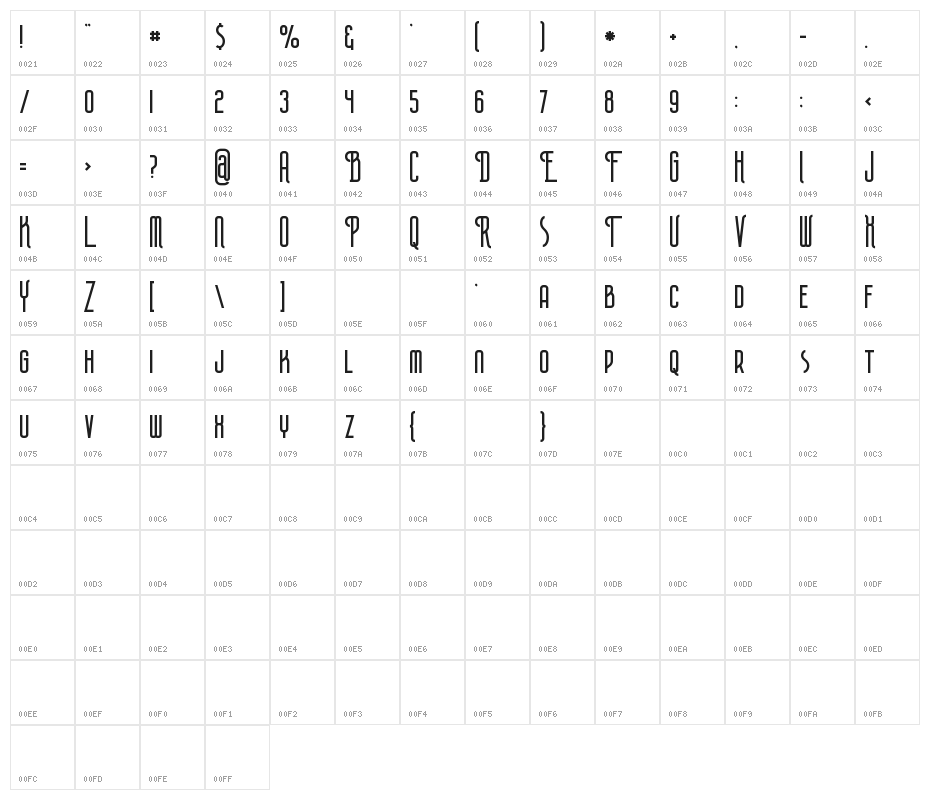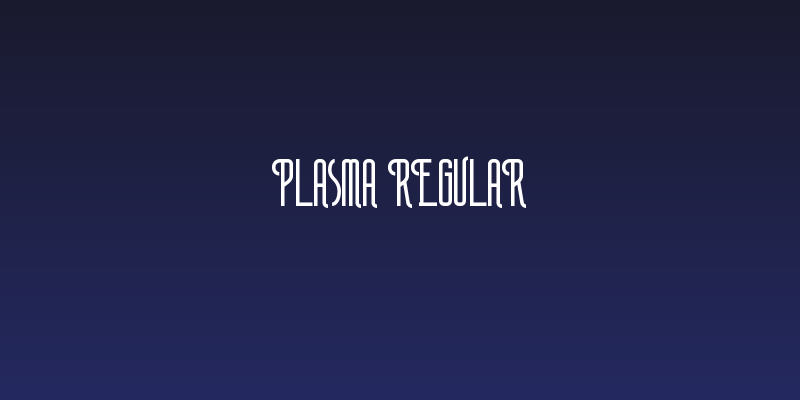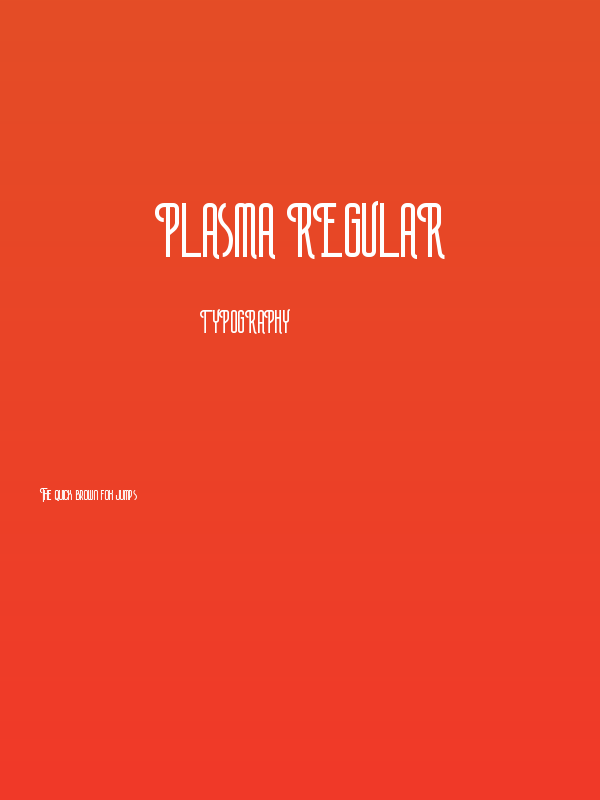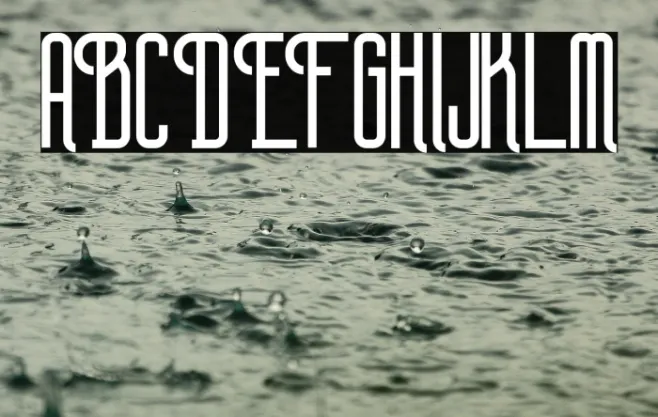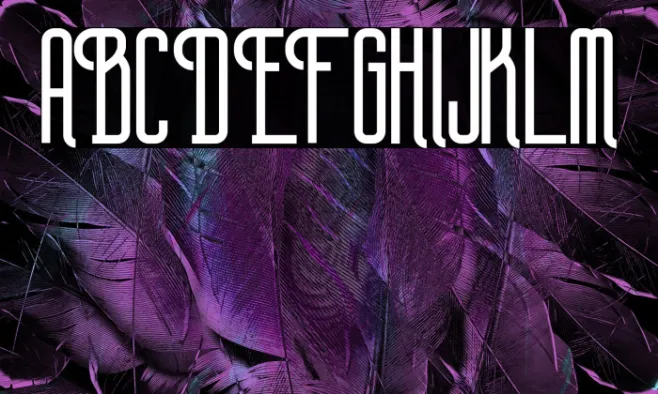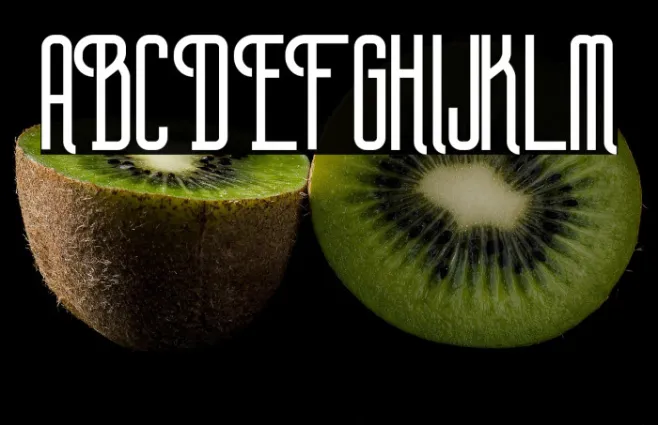
Plasma Regular Font
Plasma Regular Description
This font features a modern and sleek design with elongated, narrow characters. The uppercase letters are tall and thin, with a consistent stroke width that gives a clean and sophisticated appearance. The lowercase letters maintain the same narrow style, ensuring uniformity across the text. The numerals are also designed to match the overall aesthetic, with a geometric and streamlined look. Special characters are included, each crafted to complement the font's distinctive style. This font's unique structure makes it stand out, offering a contemporary feel that is both stylish and versatile.
| Proposed Projects | Ideal for branding, posters, and editorial design where a modern and stylish look is desired. |